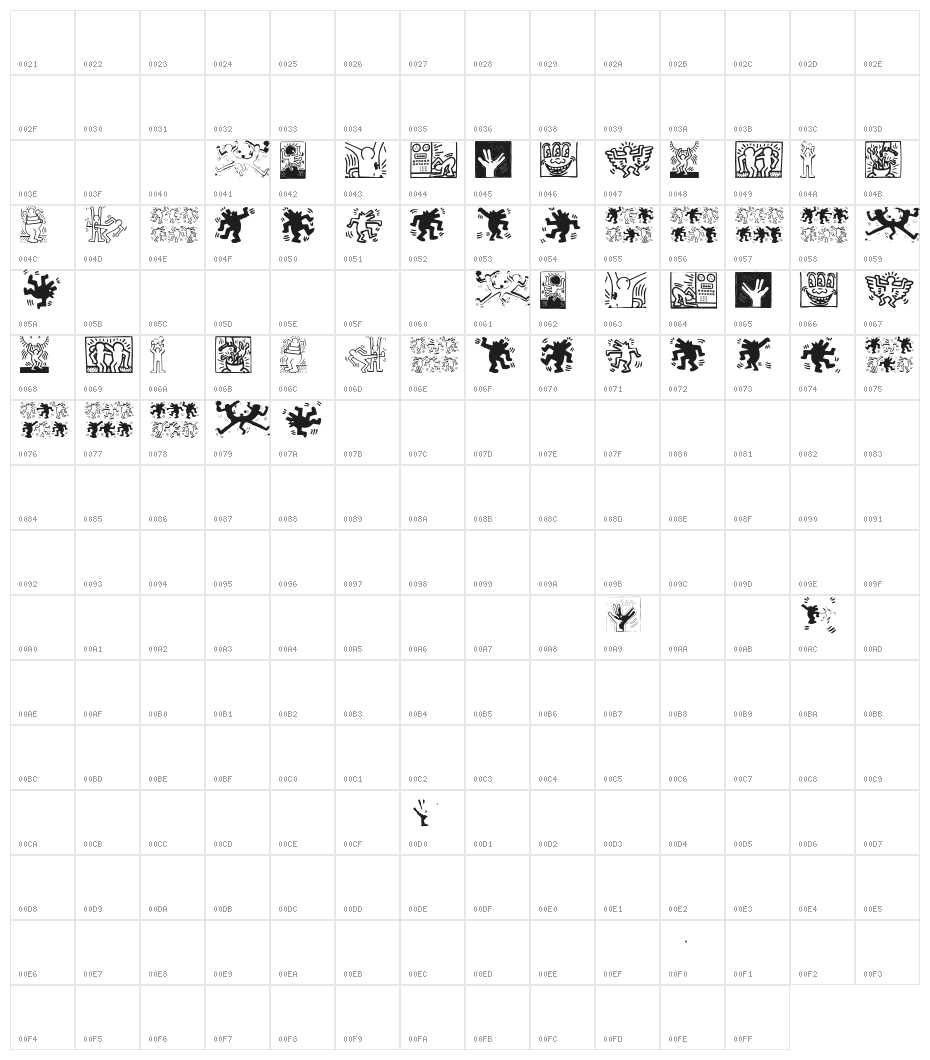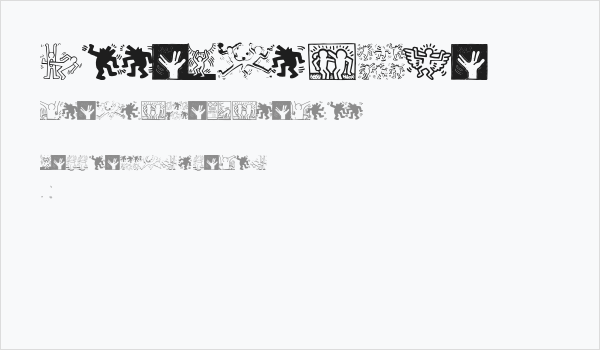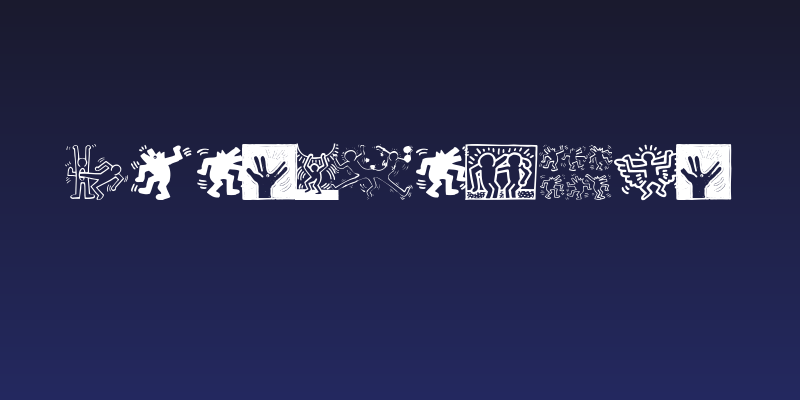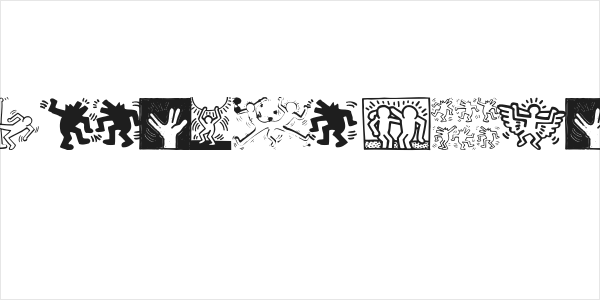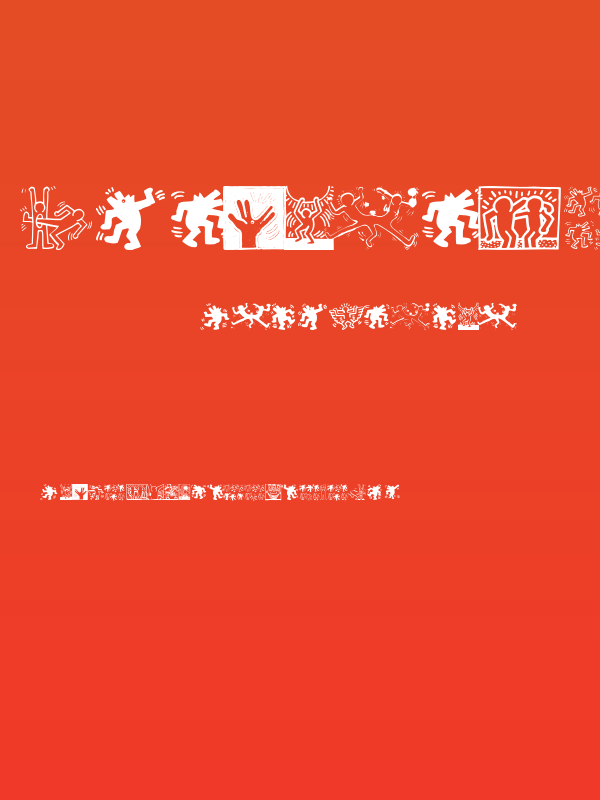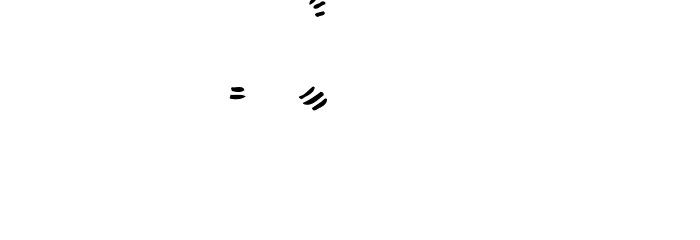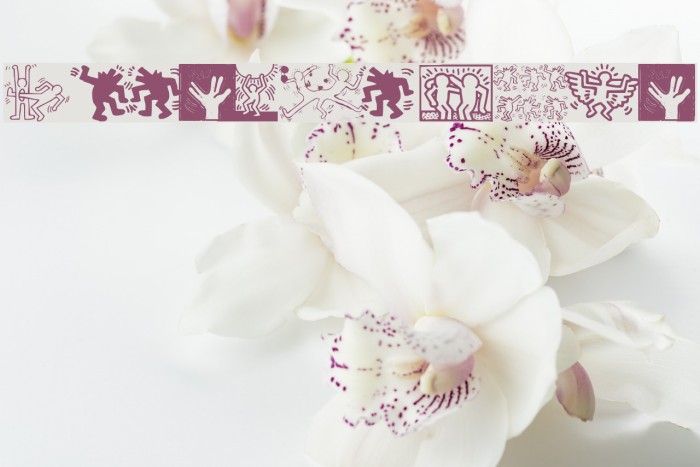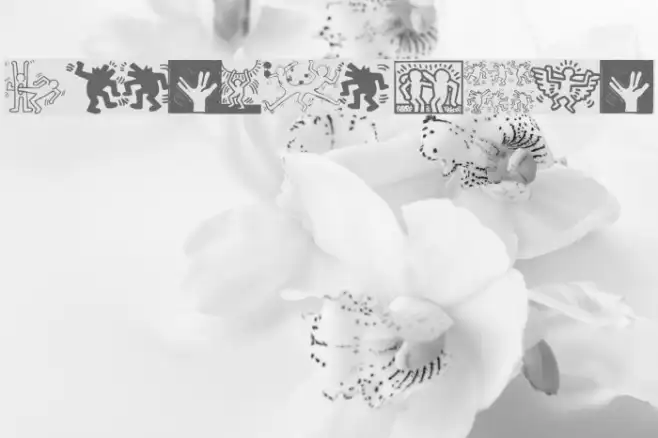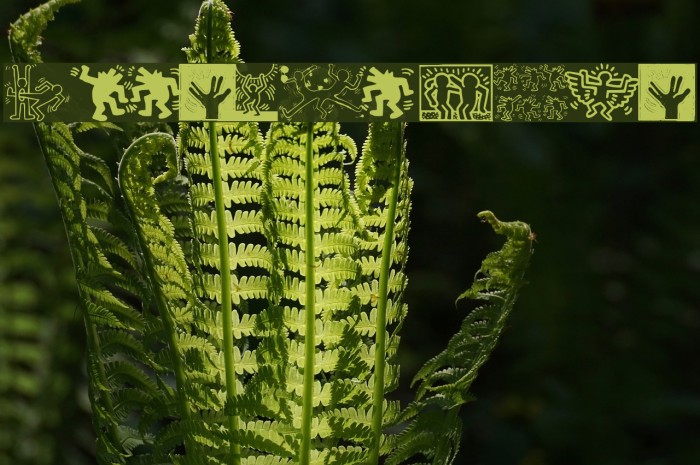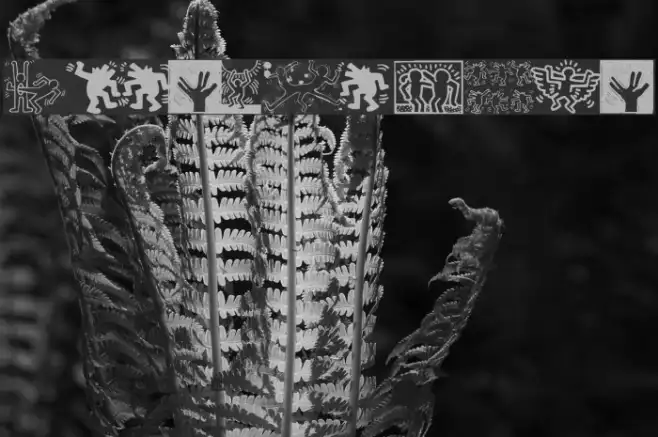
MoreHaringe Font
MoreHaringe Description
A decorative font composed of playful, hand-drawn illustrations reminiscent of street art, featuring energetic human figures, faces, and abstract shapes in a bold, high-contrast black and white style.
| Overall Style | Decorative, Playful, Artistic |
| Use Case | Logos, Headlines, Posters, Artistic displays |
| Proposed Projects | Posters, album covers, event flyers, art projects, branding for creative industries, children's materials. |